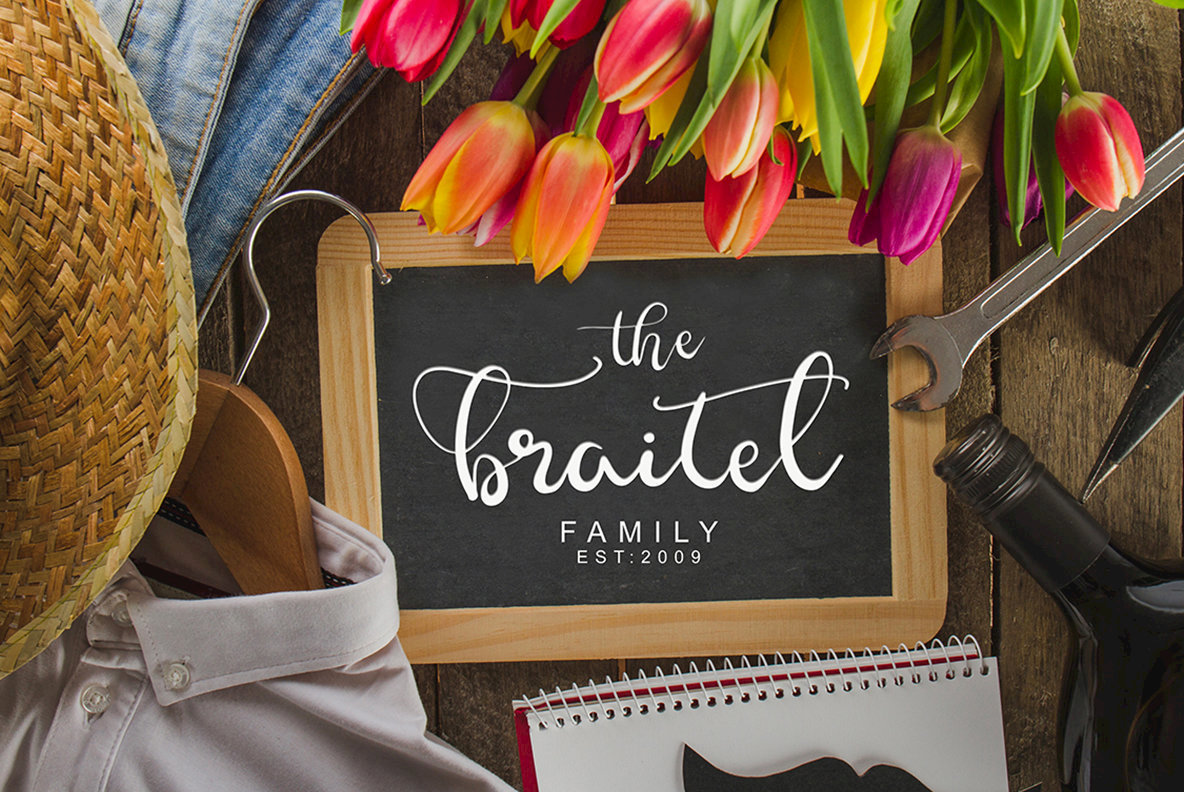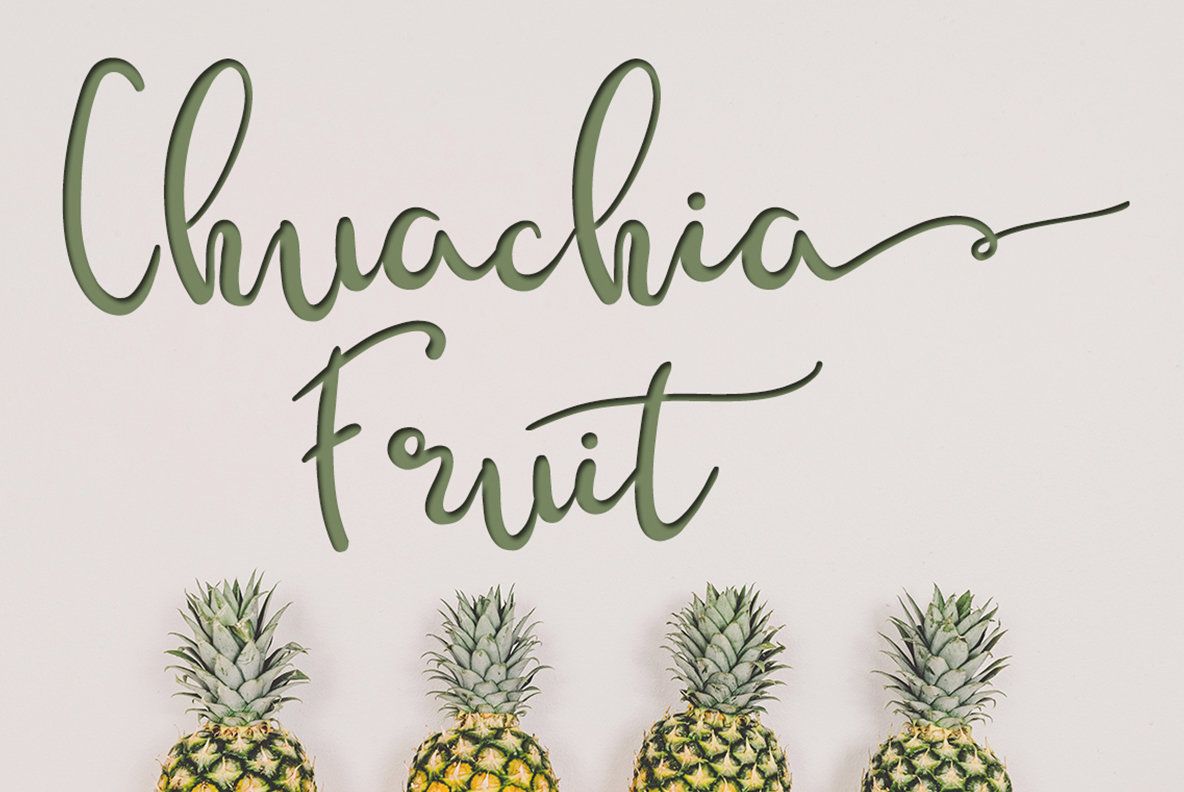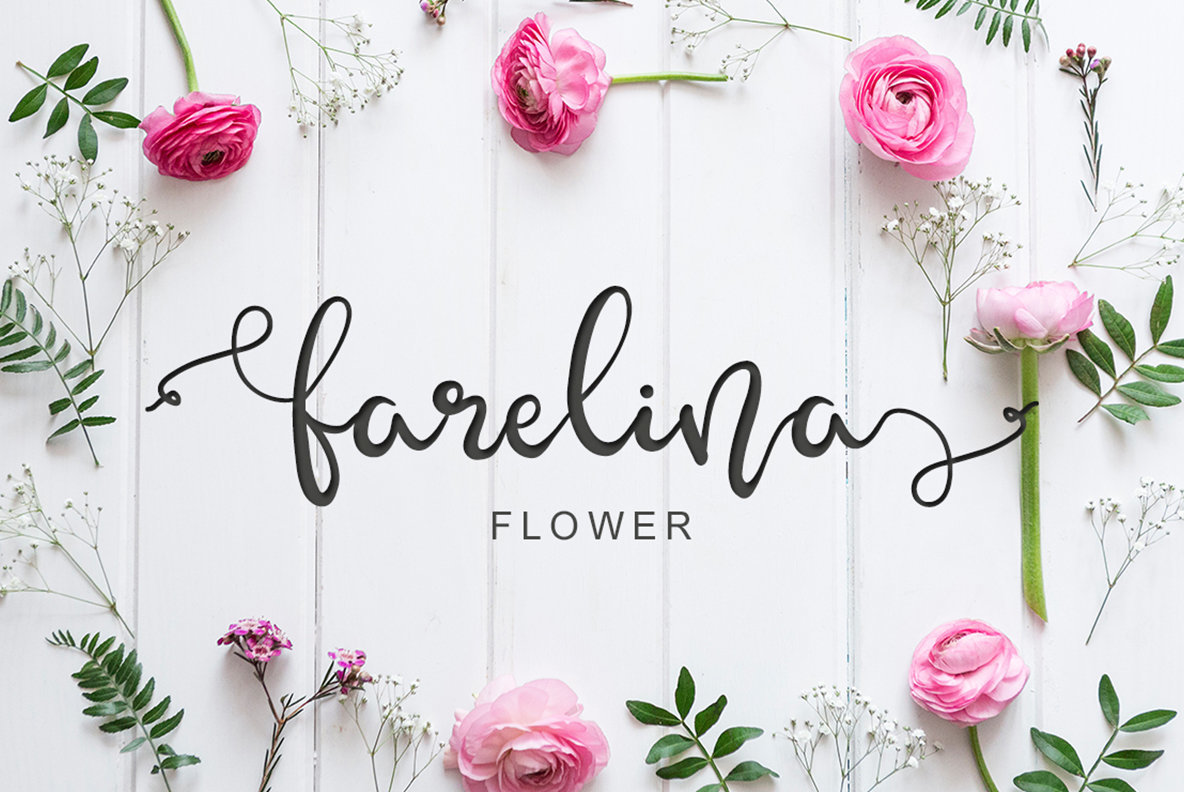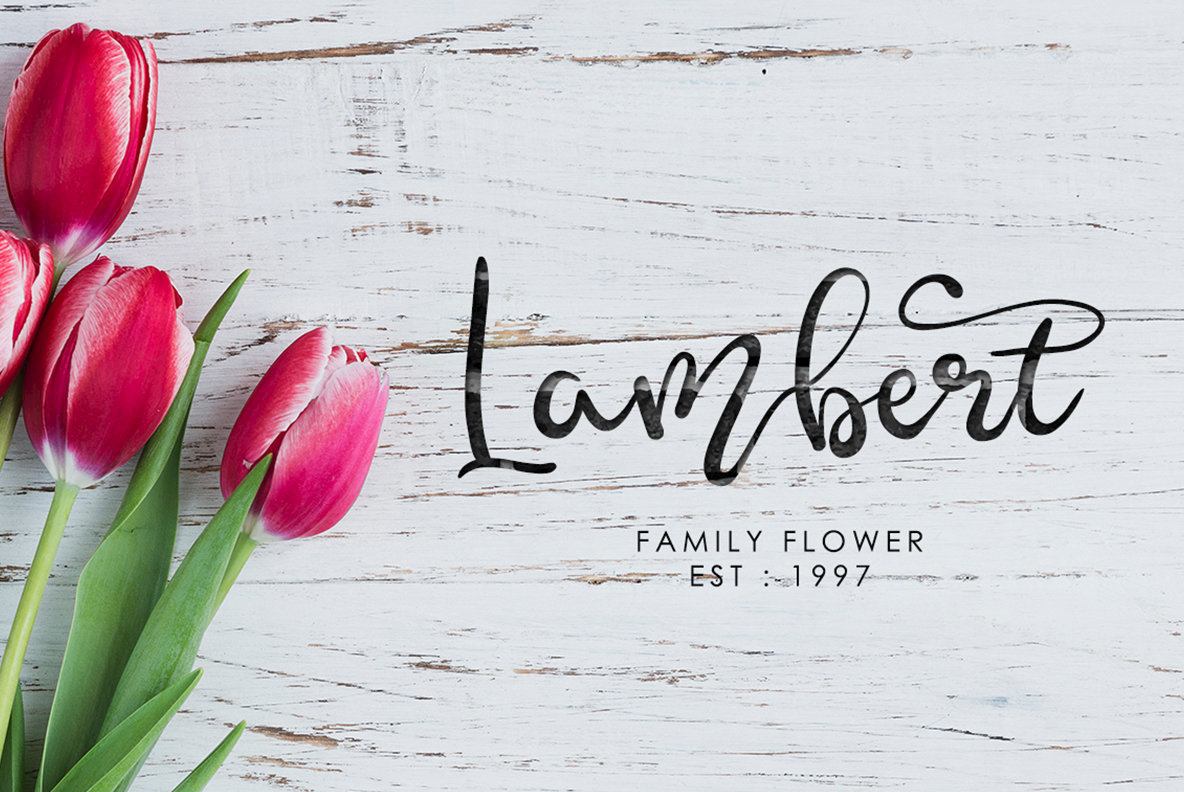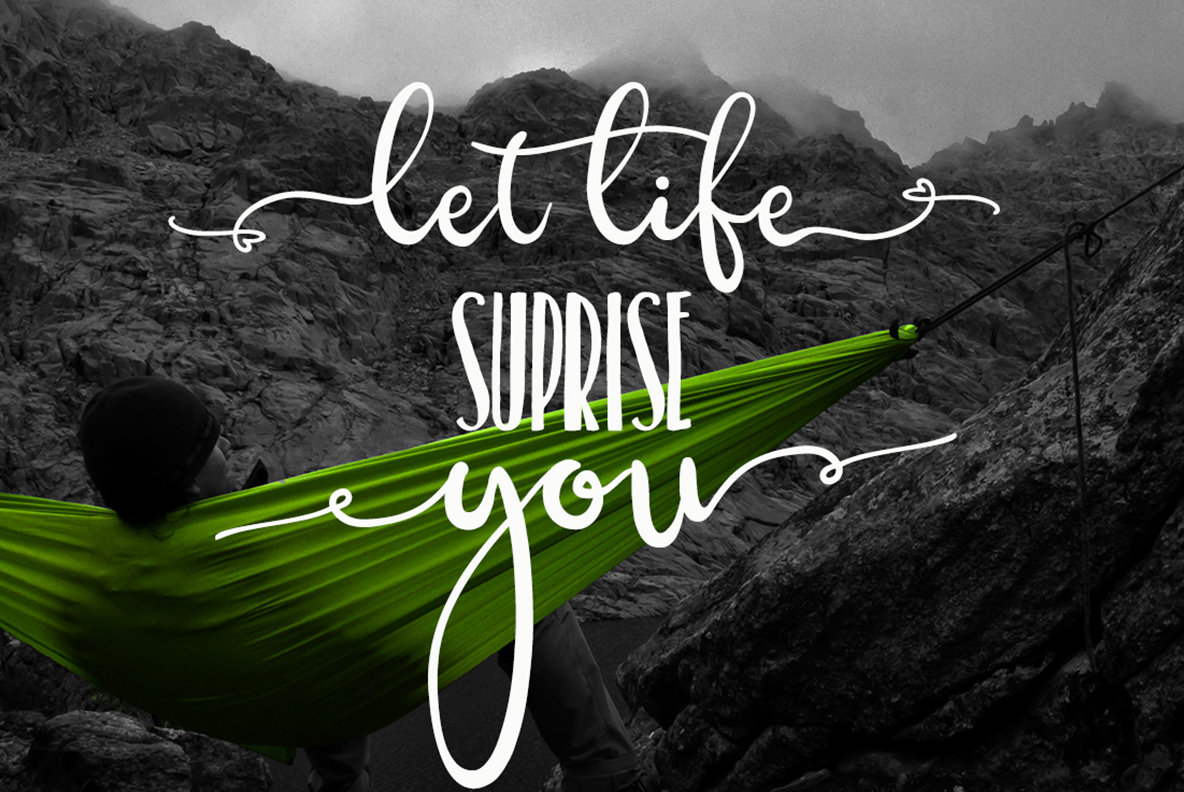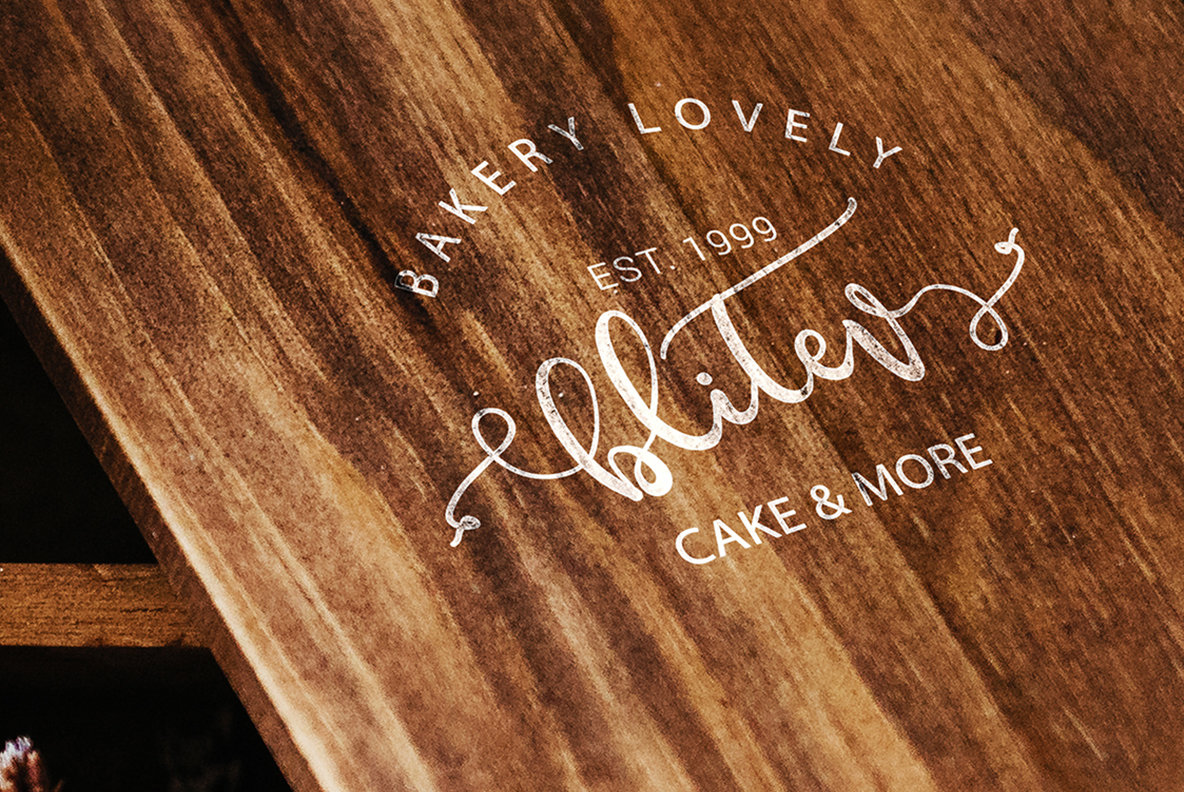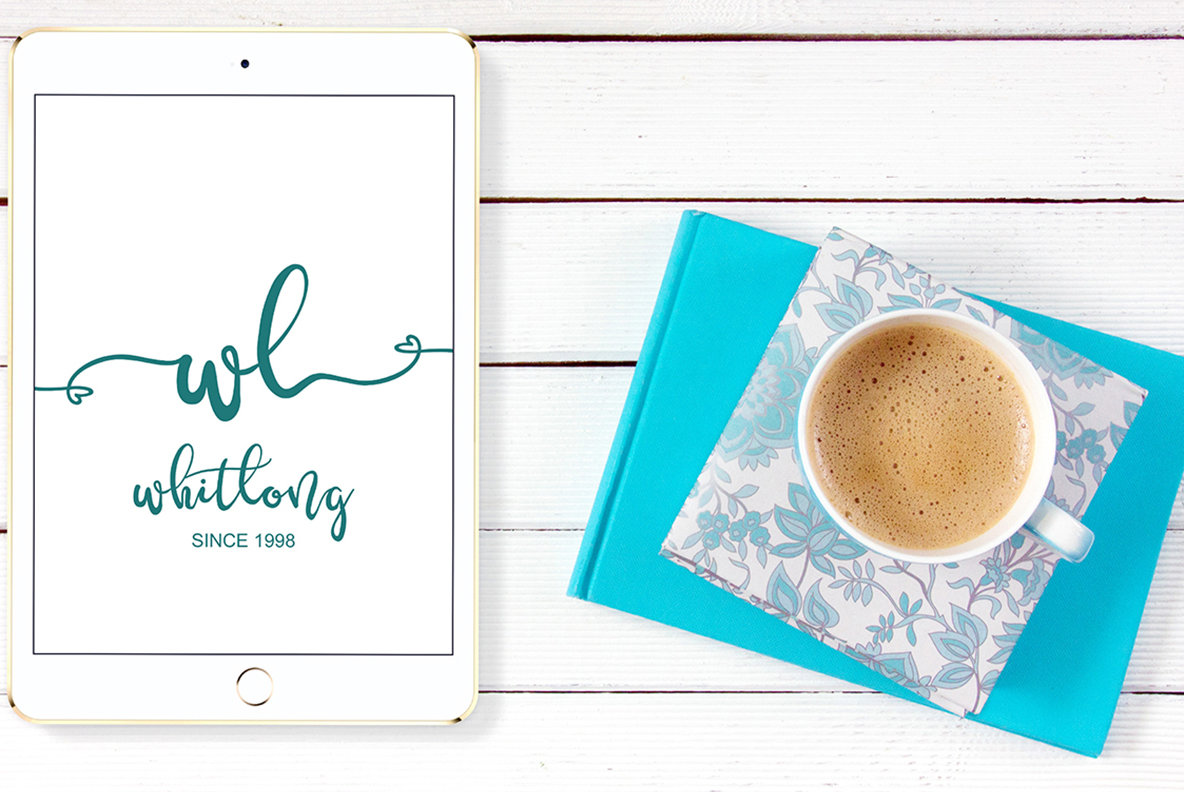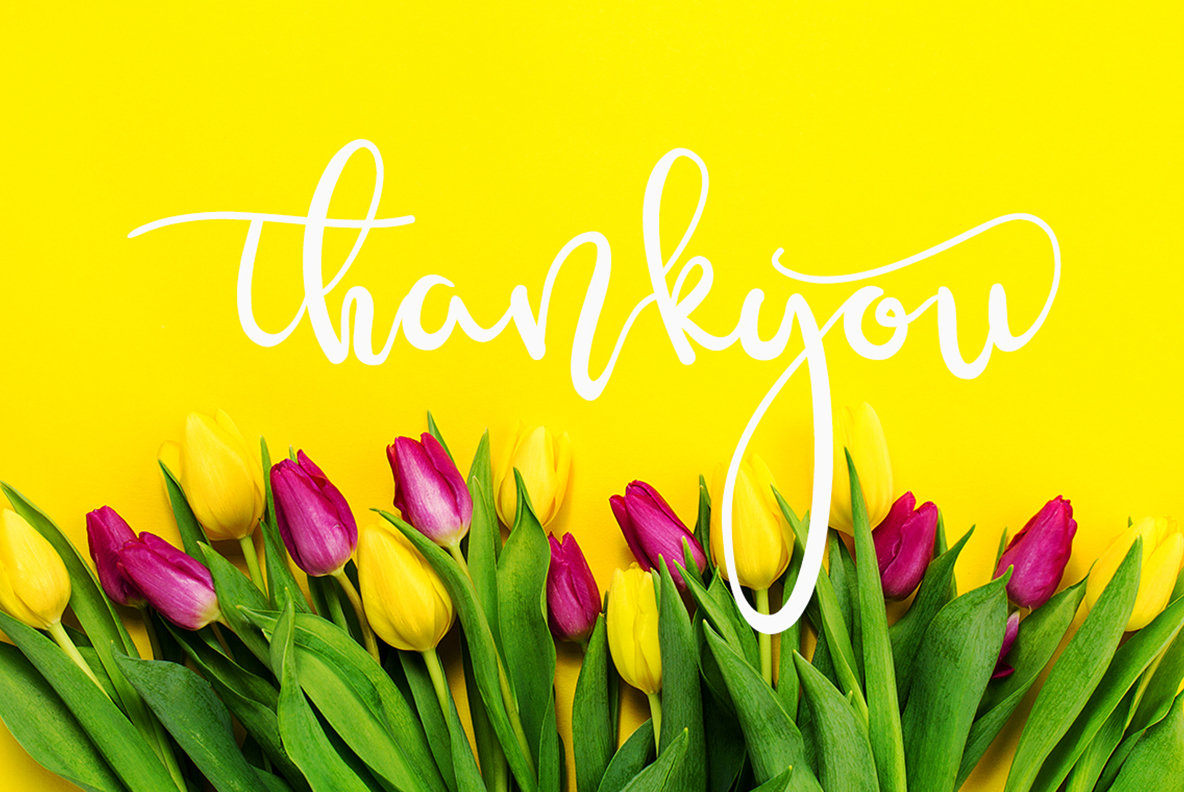
Ammhenthi
Ammhenthi is beautiful script font that works great for posters, weddings, branding, logo, fashion, apparel, letters, invitations, stationery, etc.